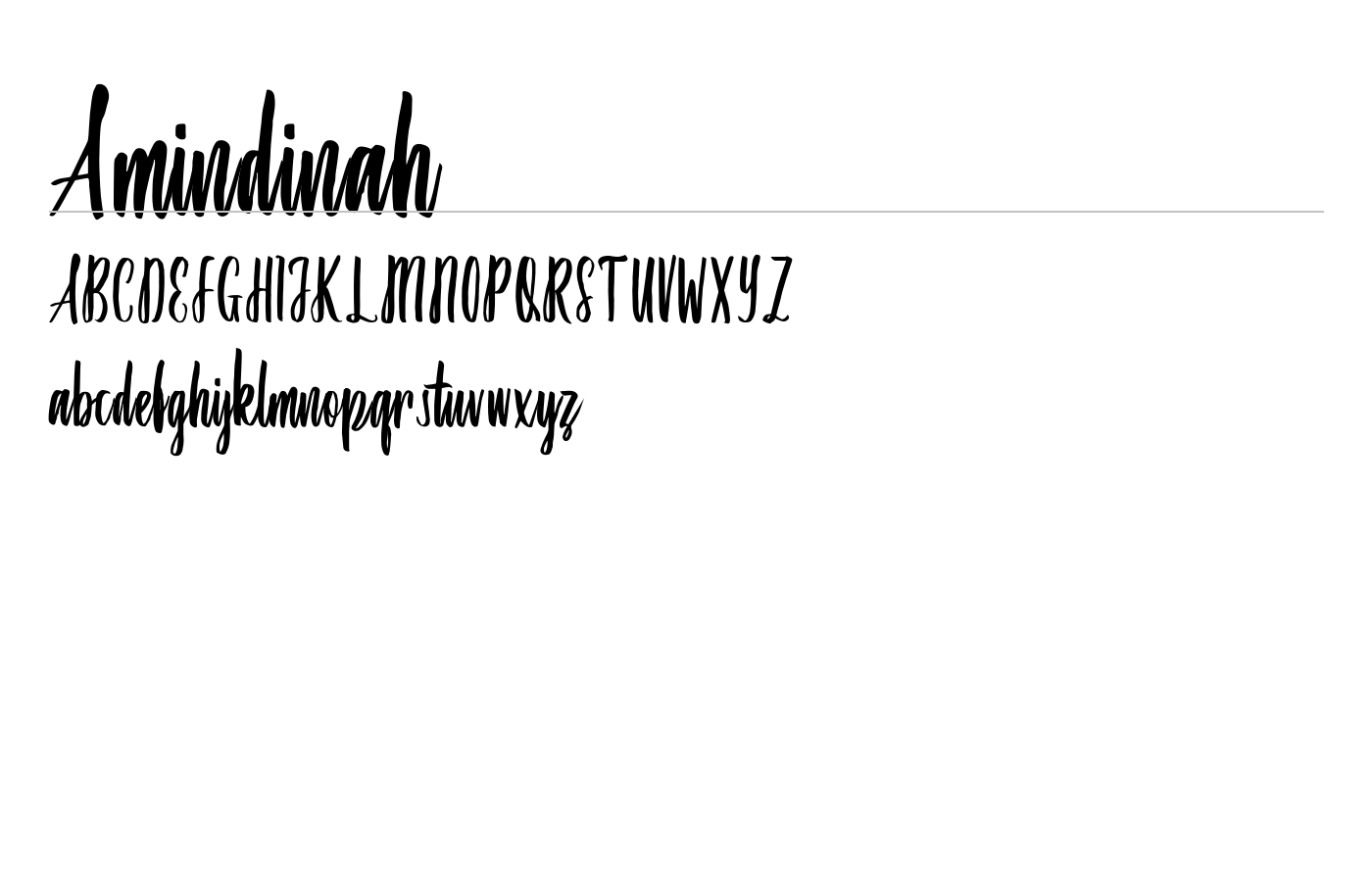
Amindinah is a lively handwritten script font with a tall, narrow structure and dynamic strokes that give it a fresh, casual feel. Its playful letterforms, with uneven baselines and unique character shapes, make it ideal for creative and informal use such as invitations, branding, and social media graphics. This font brings a personal, artistic touch that works well for projects seeking an expressive and modern handwritten style.
About Amindinah Font